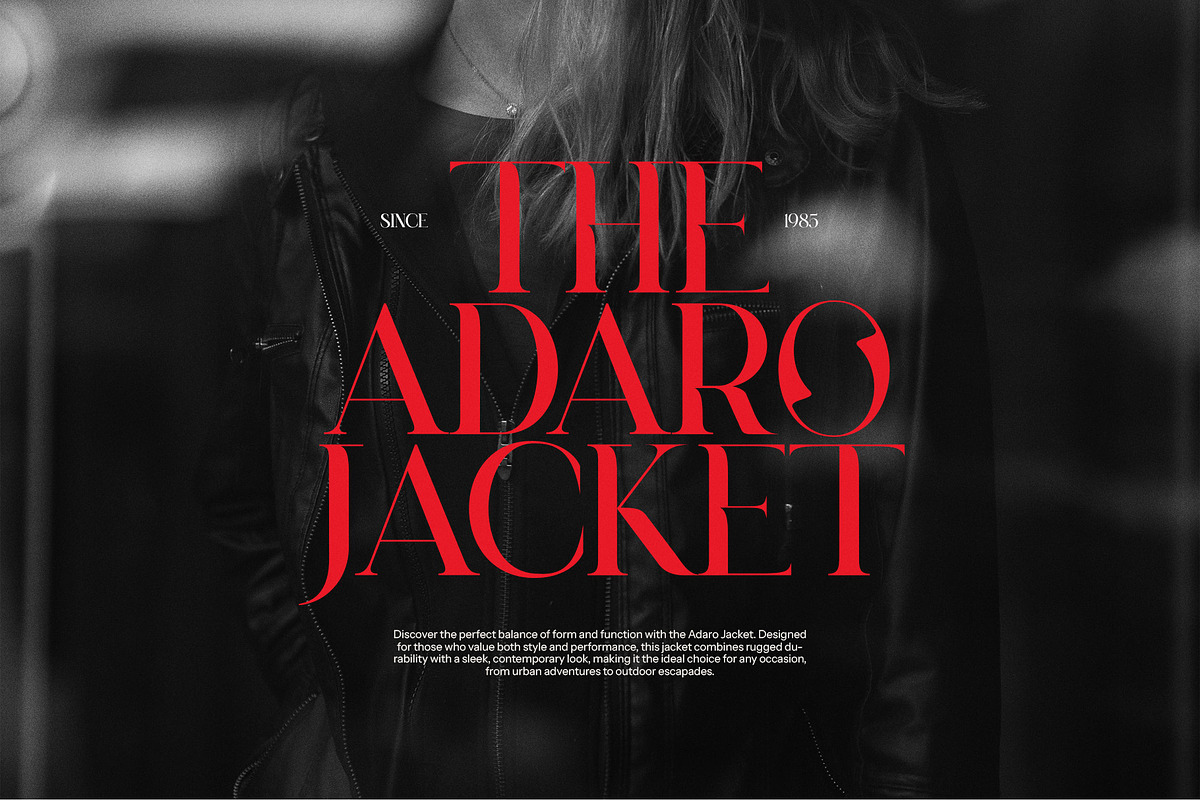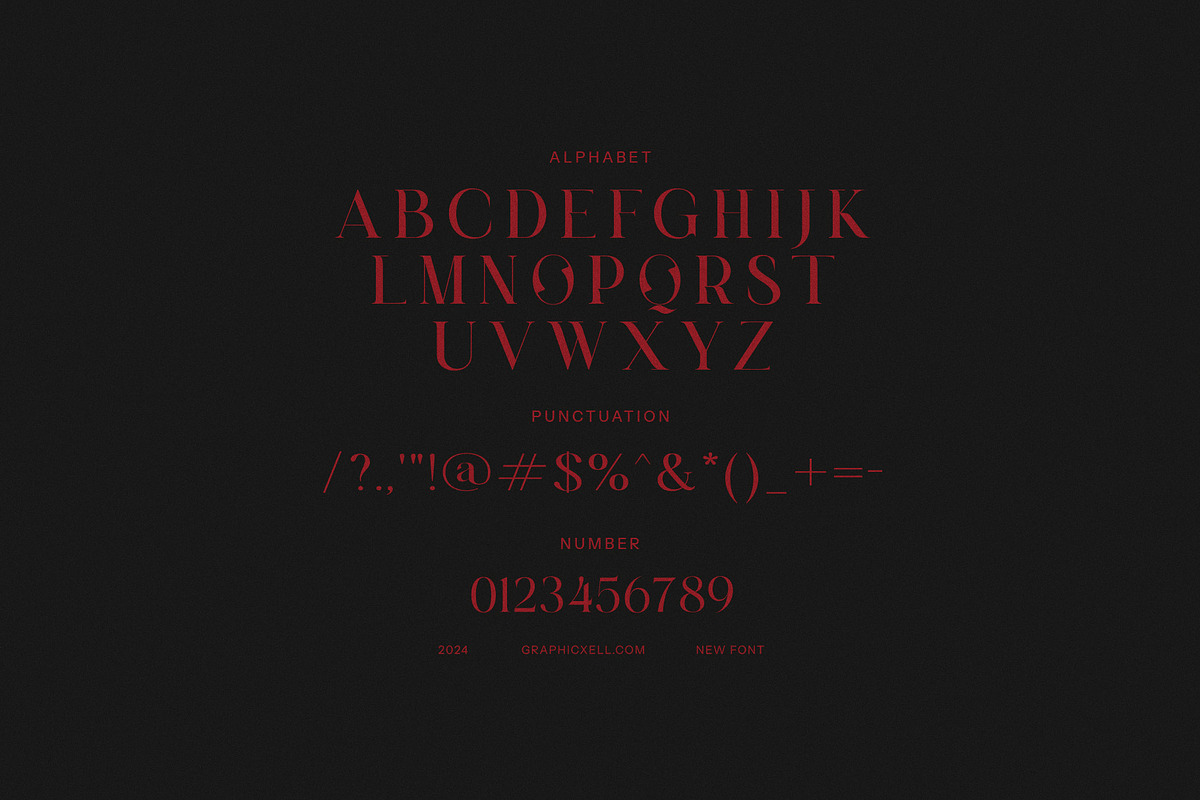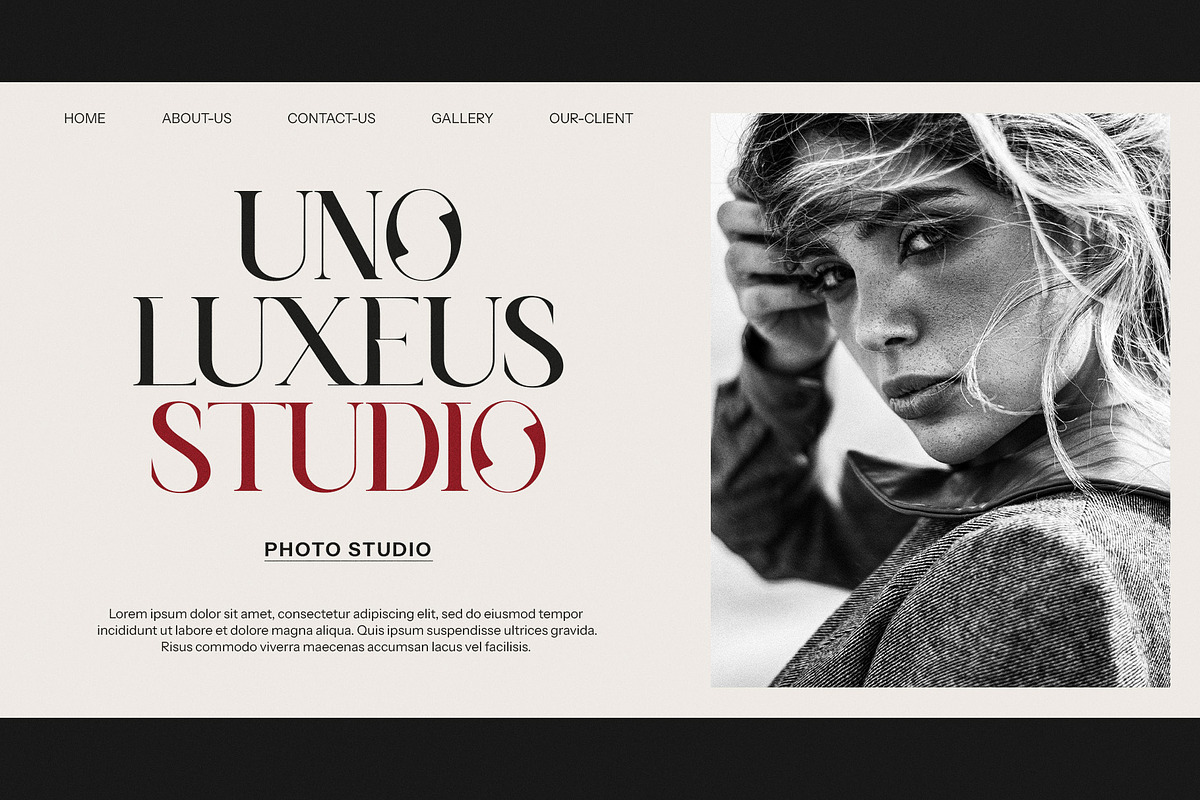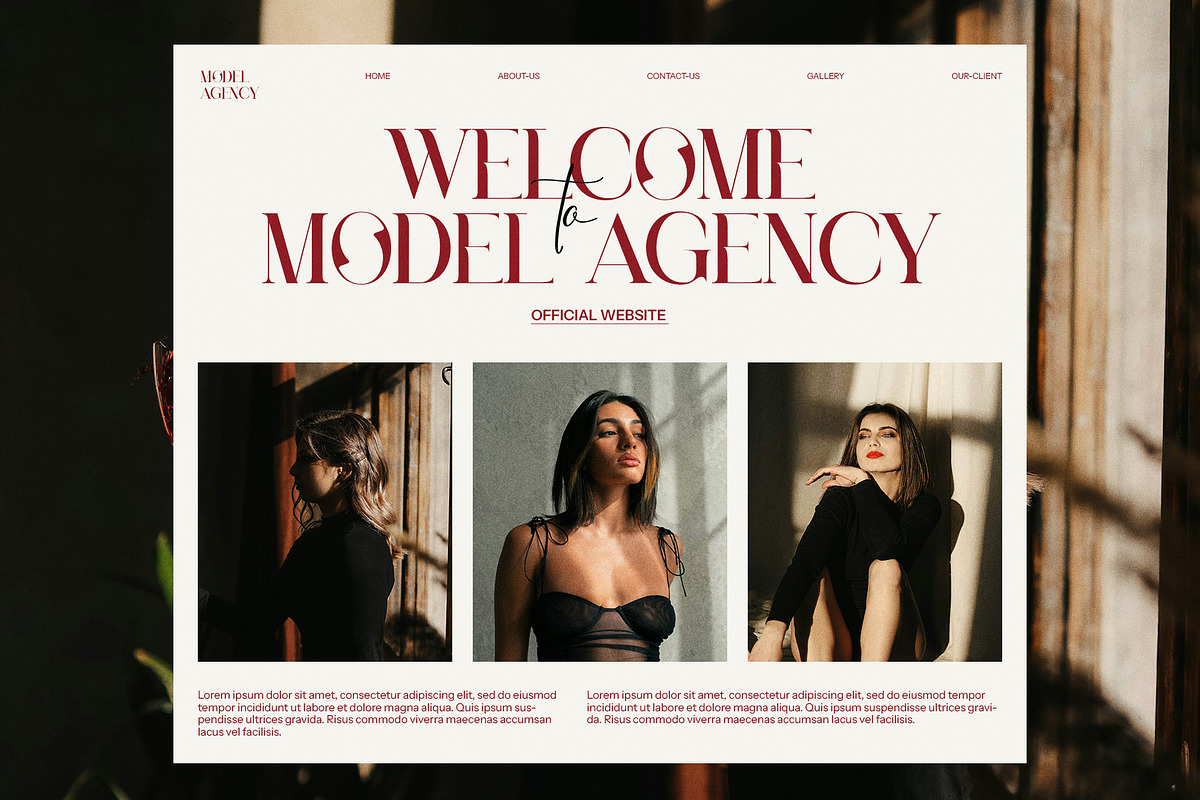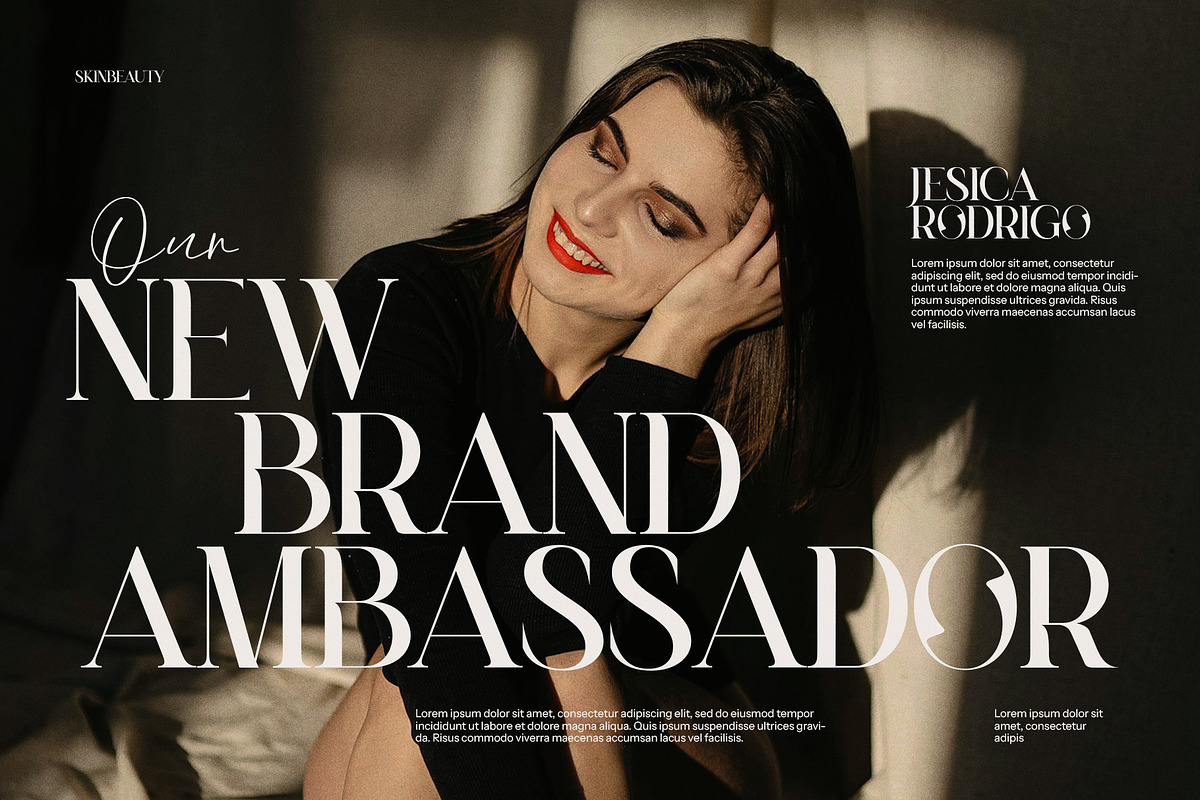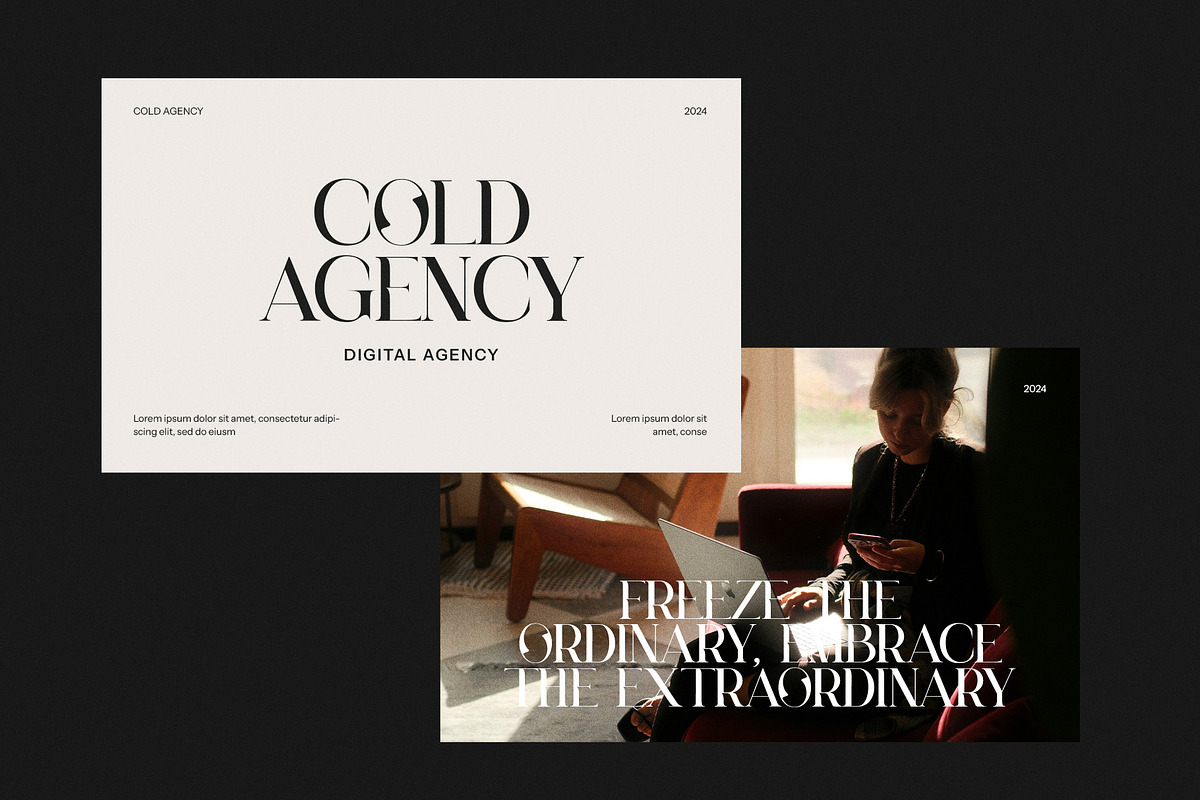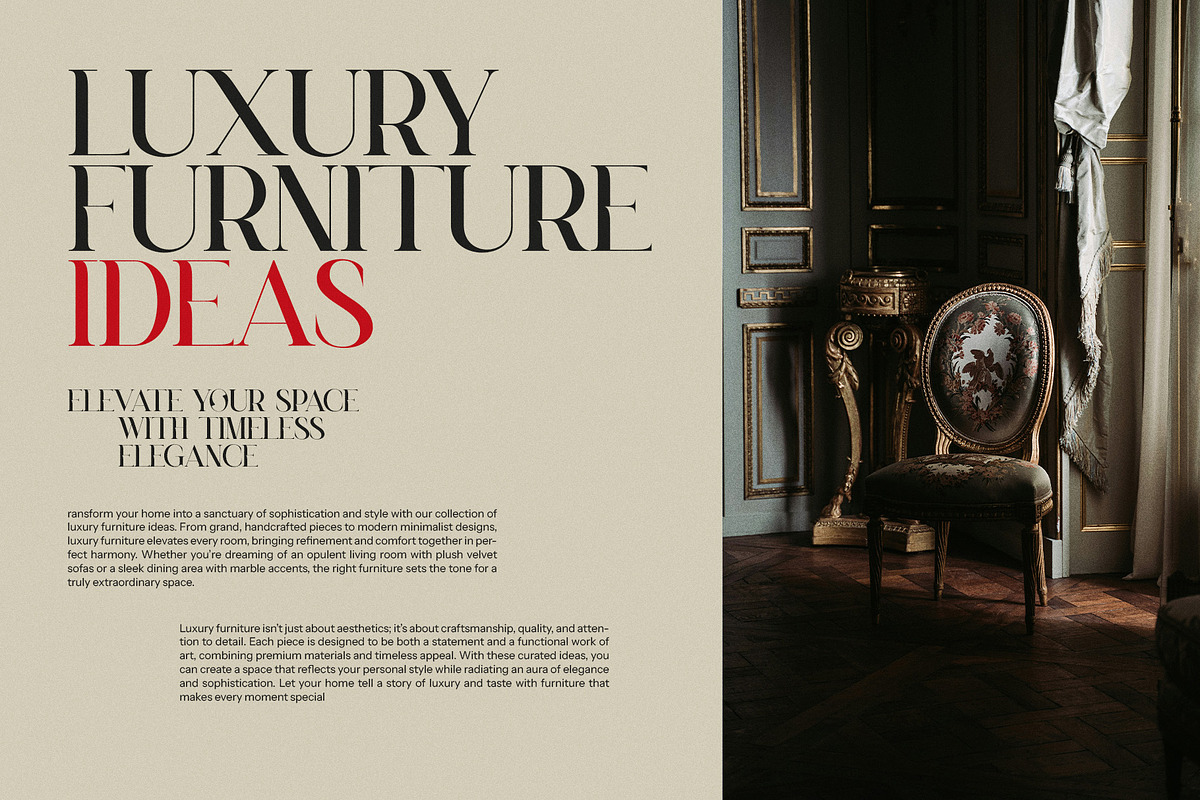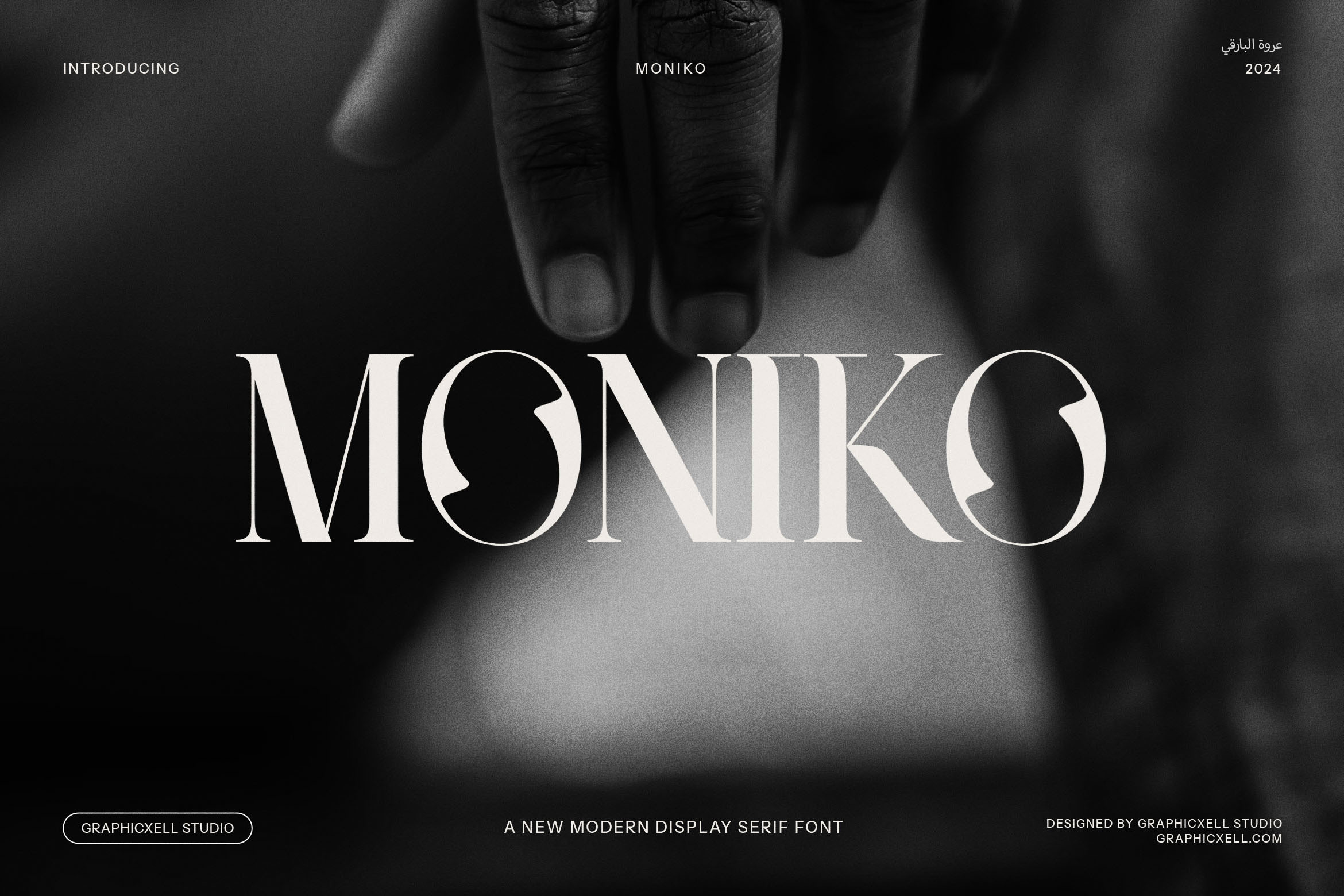
Moniko - Elegant Serif Font
Moniko Elegant Serif Font – A Perfect Fusion of Modern Elegance and Vintage Appeal
Introducing Moniko Elegant Serif Font, a beautifully crafted typeface that combines modern sophistication with vintage-inspired charm. This stunning serif font is designed to add a touch of class and refinement to your creative projects. With its unique and graceful letterforms, Moniko offers both style and legibility, making it an ideal choice for a variety of high-end design applications.
The refined elegance of Moniko makes it perfect for logos, branding, websites, magazines, advertisements, and more. Whether you're working on a luxury brand, an exclusive boutique, or product packaging, this font brings a sense of timeless beauty to any project. Its clean lines and tasteful serifs make it versatile for both print and digital environments.
The vintage-inspired detailing in Moniko enhances its modern structure, offering a balance of nostalgia and contemporary style. This makes it perfect for retro branding, vintage design projects, or anything that needs a touch of sophistication and grace. It works beautifully in magazine layouts, food branding, advertisements, and premium product packaging, ensuring your designs stand out with elegance.
Whether you're designing for luxury products, boutiques, or high-end events, Moniko Elegant Serif Font delivers a refined, elegant look that will elevate your brand identity and captivate your audience. Perfect for creative professionals who demand both beauty and functionality, Moniko is the ideal font for projects that need a timeless, sophisticated touch.